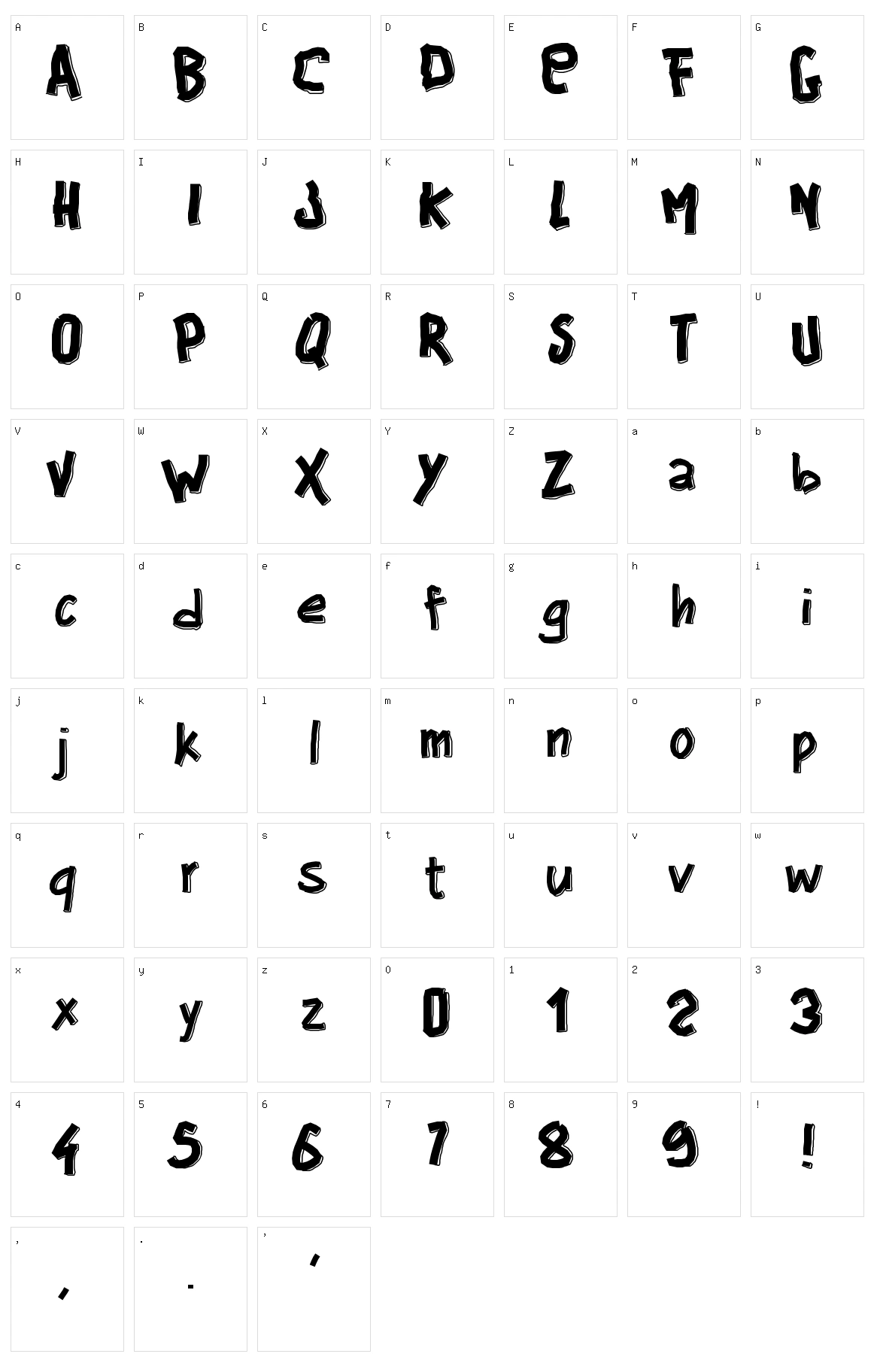
The free font PW Big Blocks is carefully designed by Peax Webdesign, showcasing a thoughtful balance of creativity and usability and falls under the Cartoon font style. When you download the ZIP file, it contains only 109.39 KB of font files, making it lightweight and quick to download. Please review the license details below to understand permitted usage and distribution rights. If license information is not available, we recommend using this font for personal projects only or contacting the author directly for commercial usage permissions.